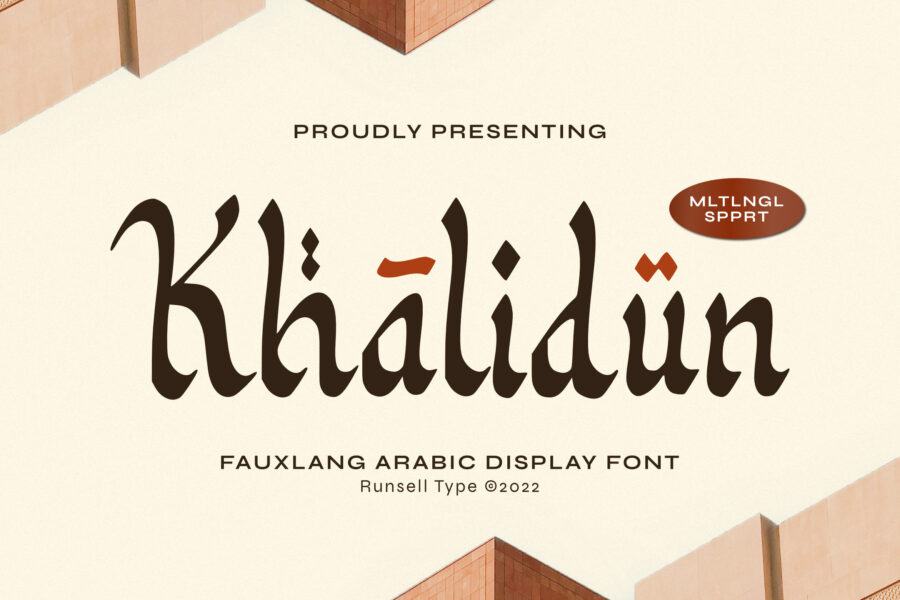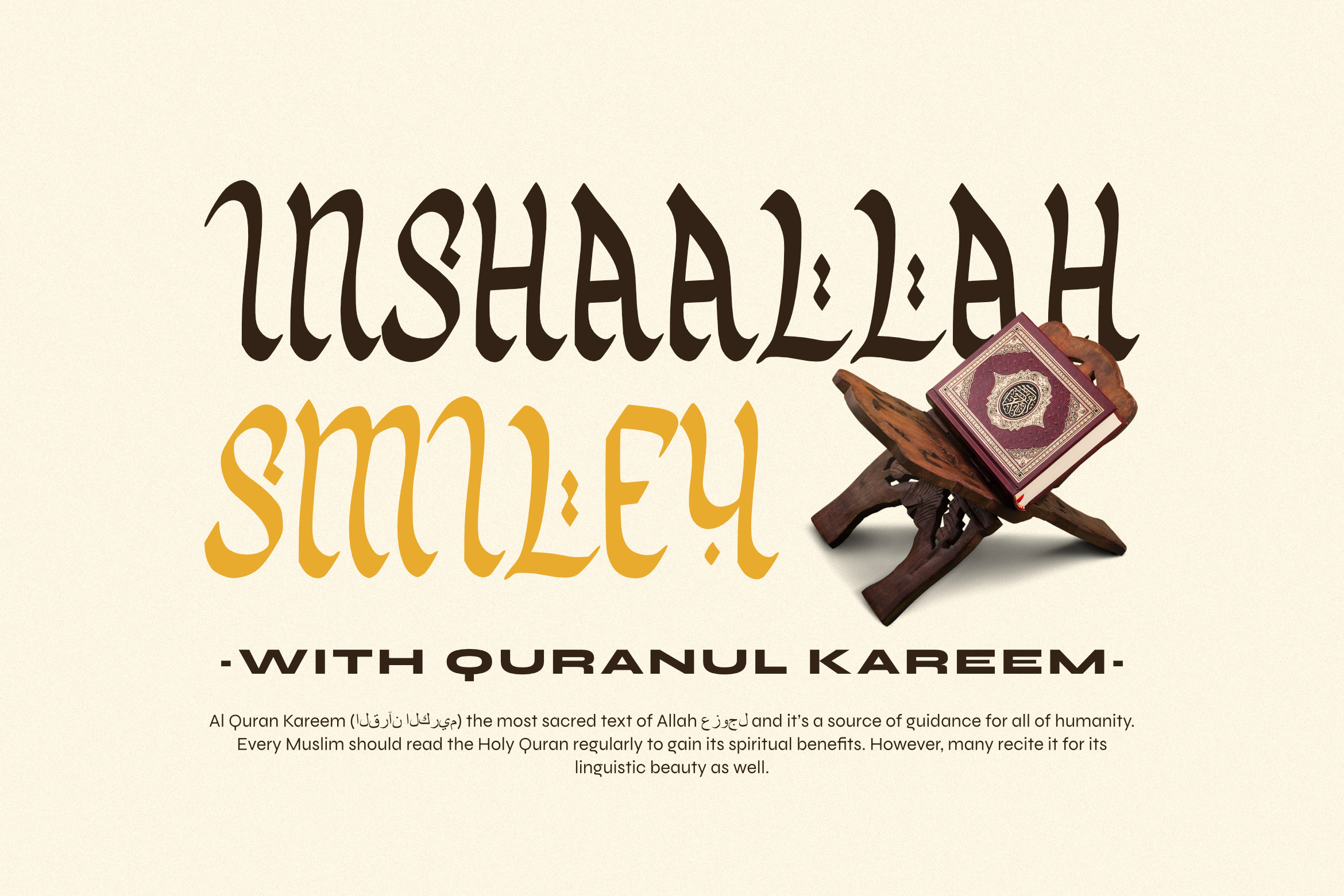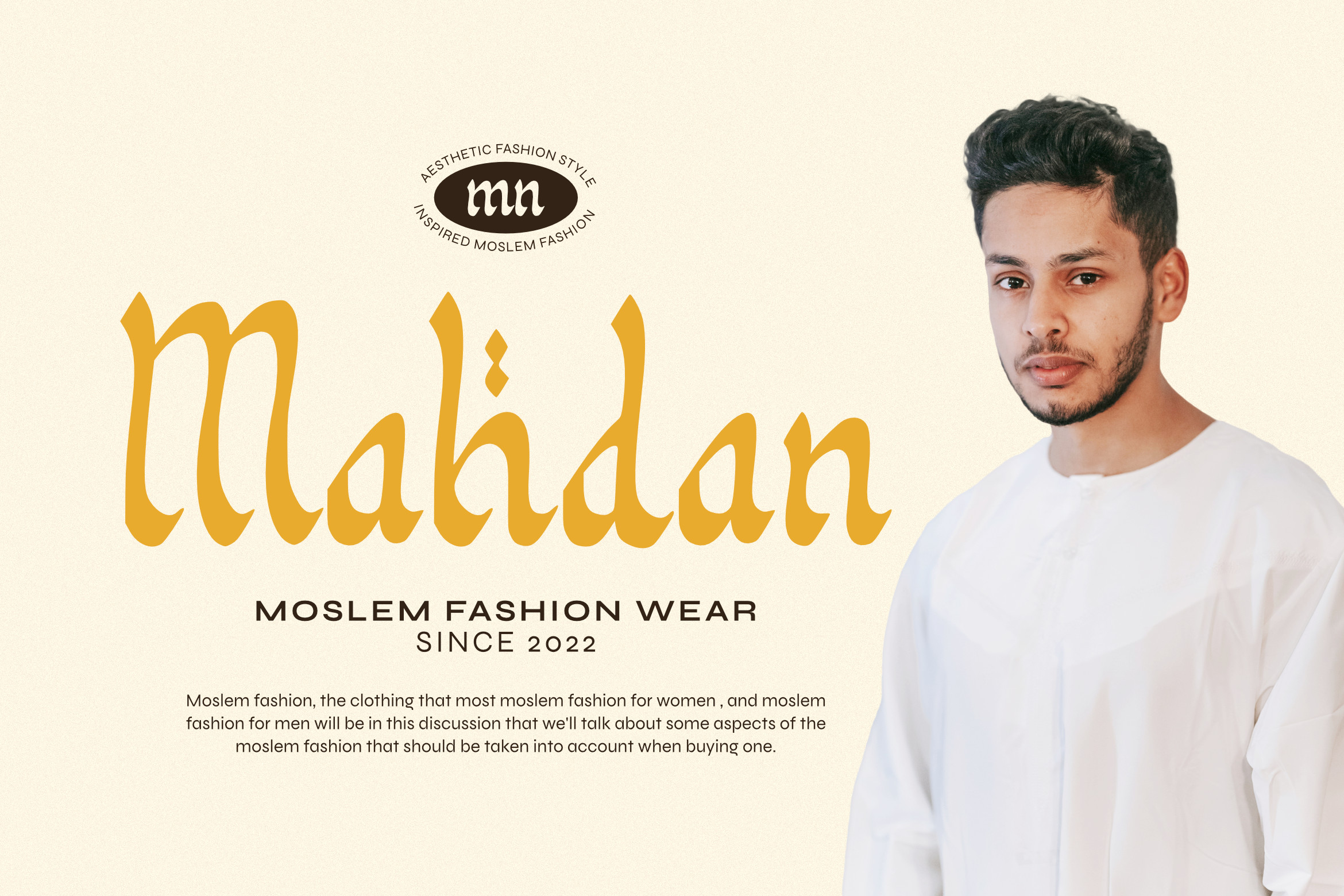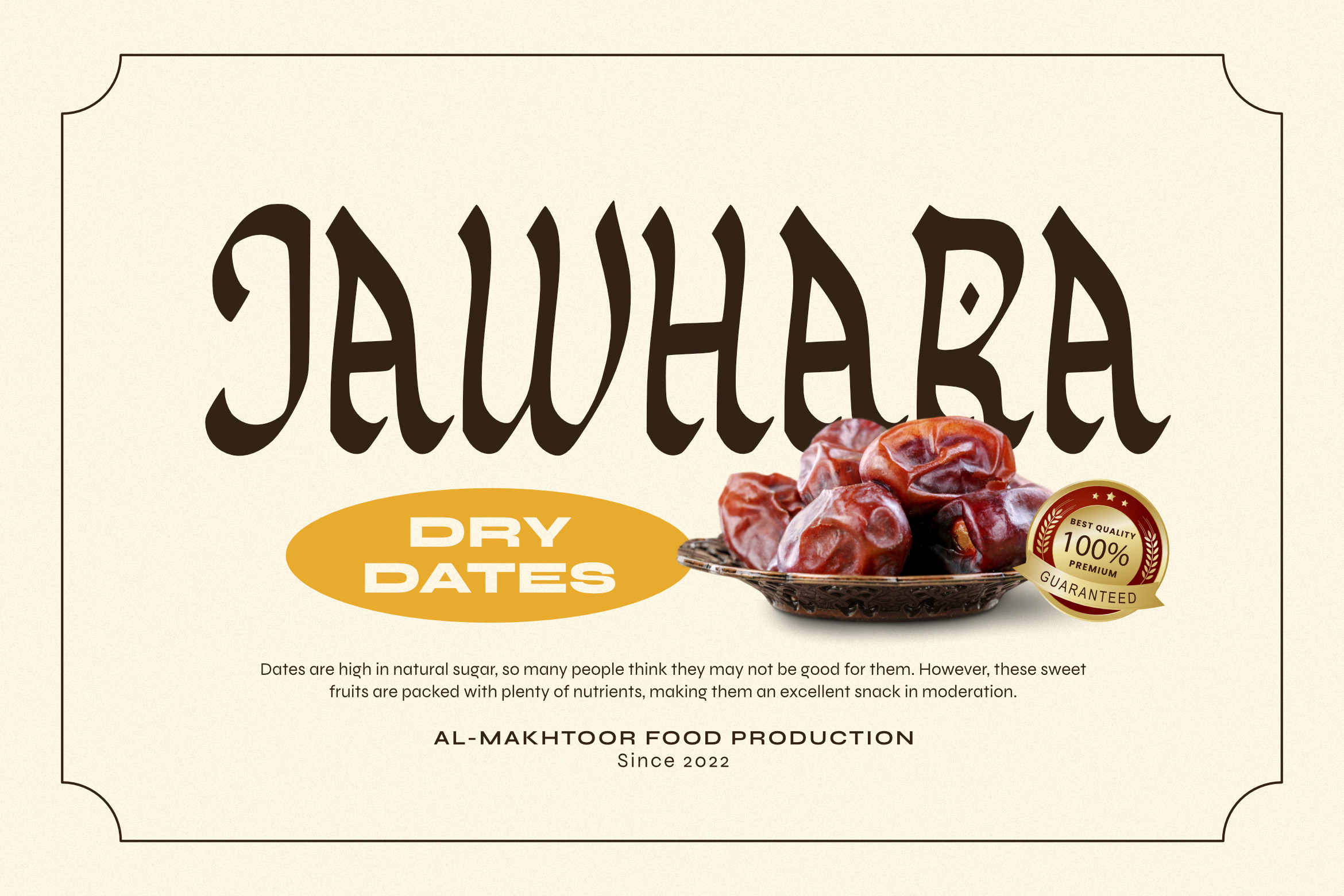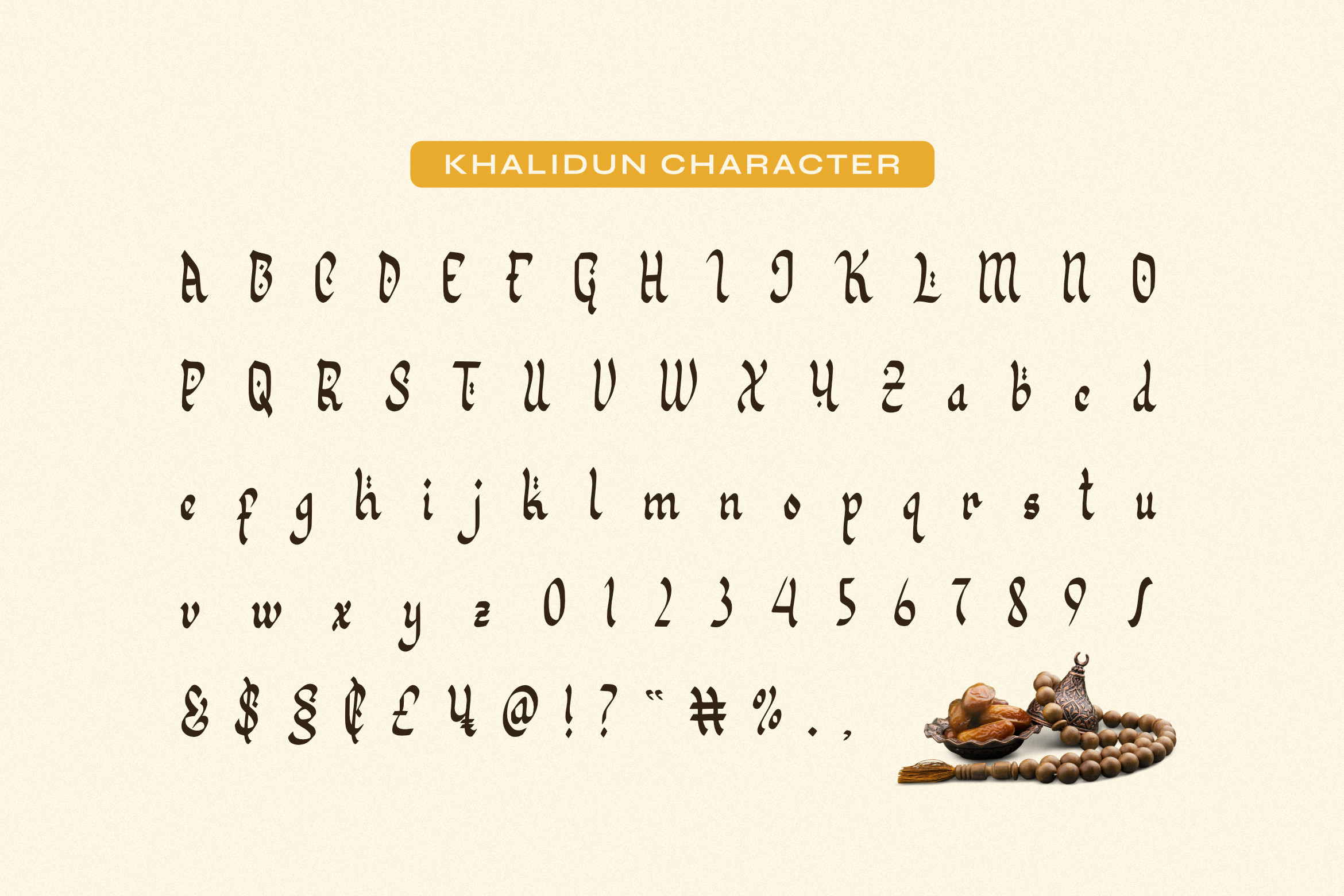
Khalidun is a faux-Arabic display font inspired by traditional calligraphy and Islamic ornamentation. It blends sharp, calligraphic strokes with gothic-like elegance, creating a unique letterform that feels both sacred and expressive. Its exaggerated verticals and ornamental diacritics evoke Middle Eastern aesthetics, making it ideal for cultural branding, editorial headlines, or spiritual-themed visuals.
This typeface includes uppercase, lowercase, numbers, and a wide range of punctuation, along with multilingual support. Khalidun is particularly suited for packaging design, mosque banners, event posters, or Islamic fashion branding that seeks a nostalgic yet stylized Arabic look.
Khalidun